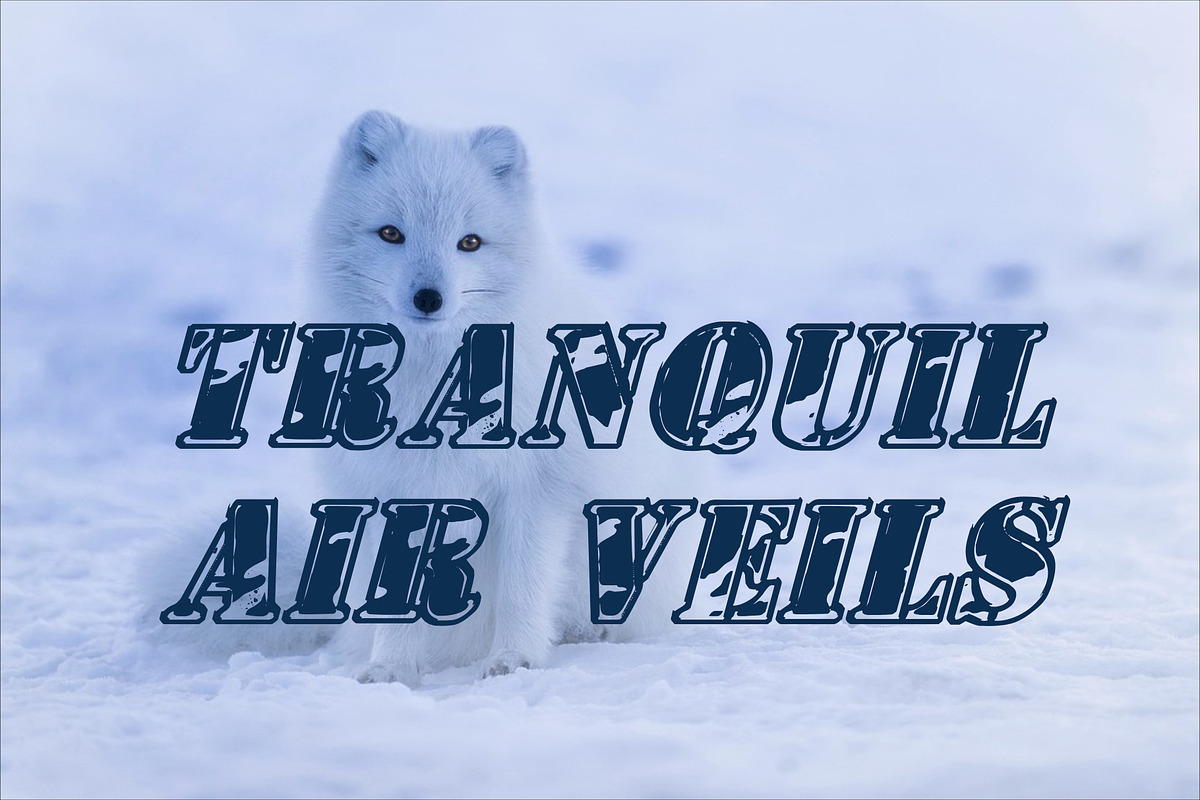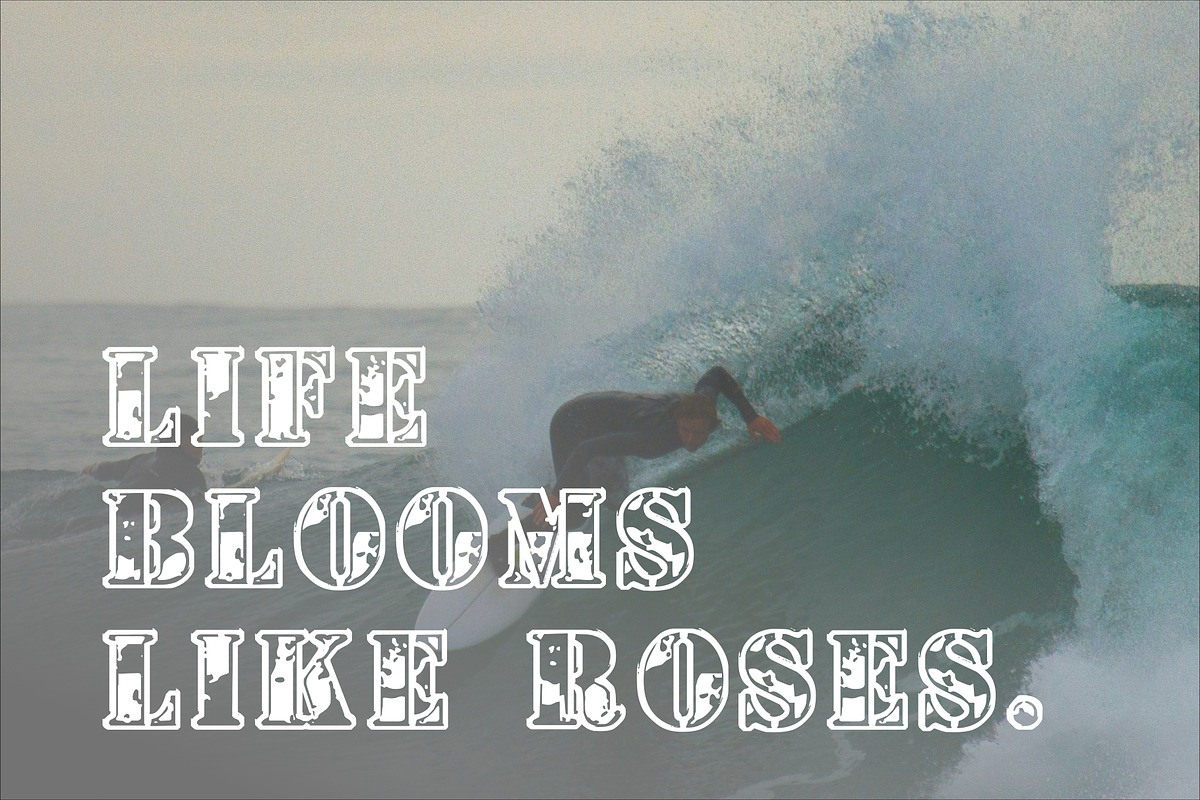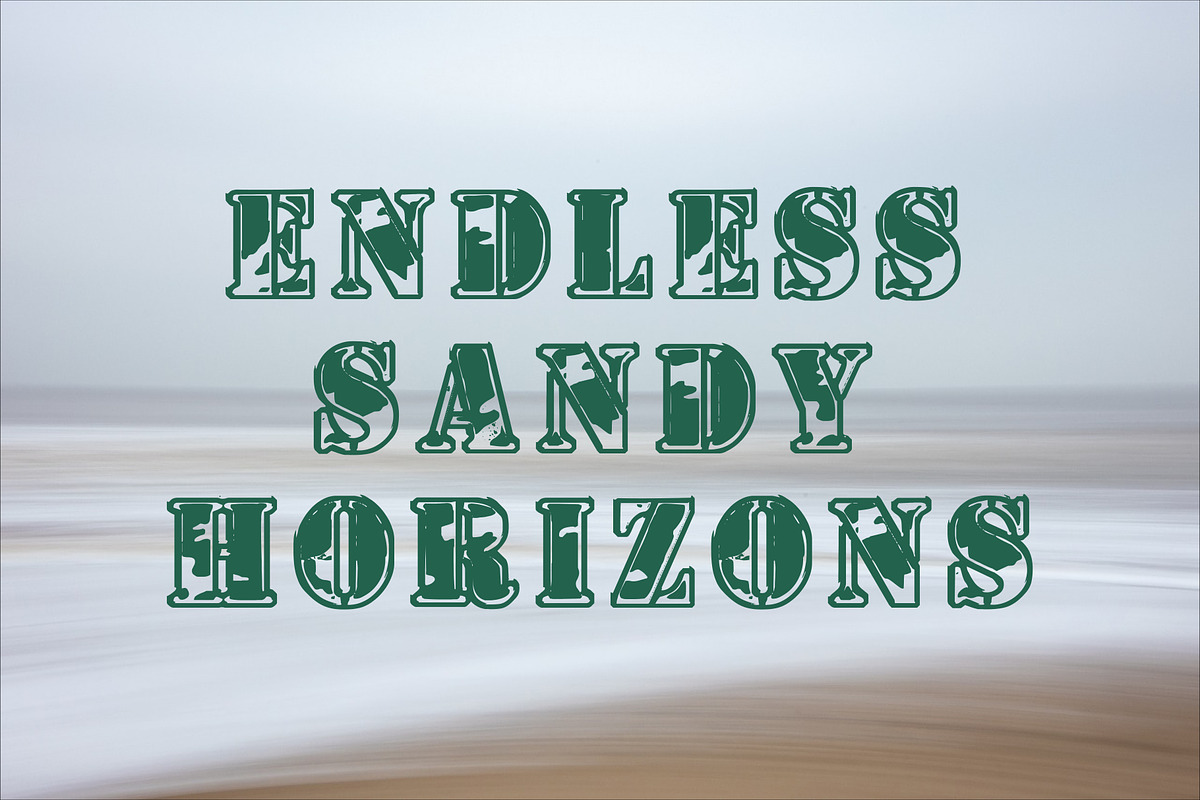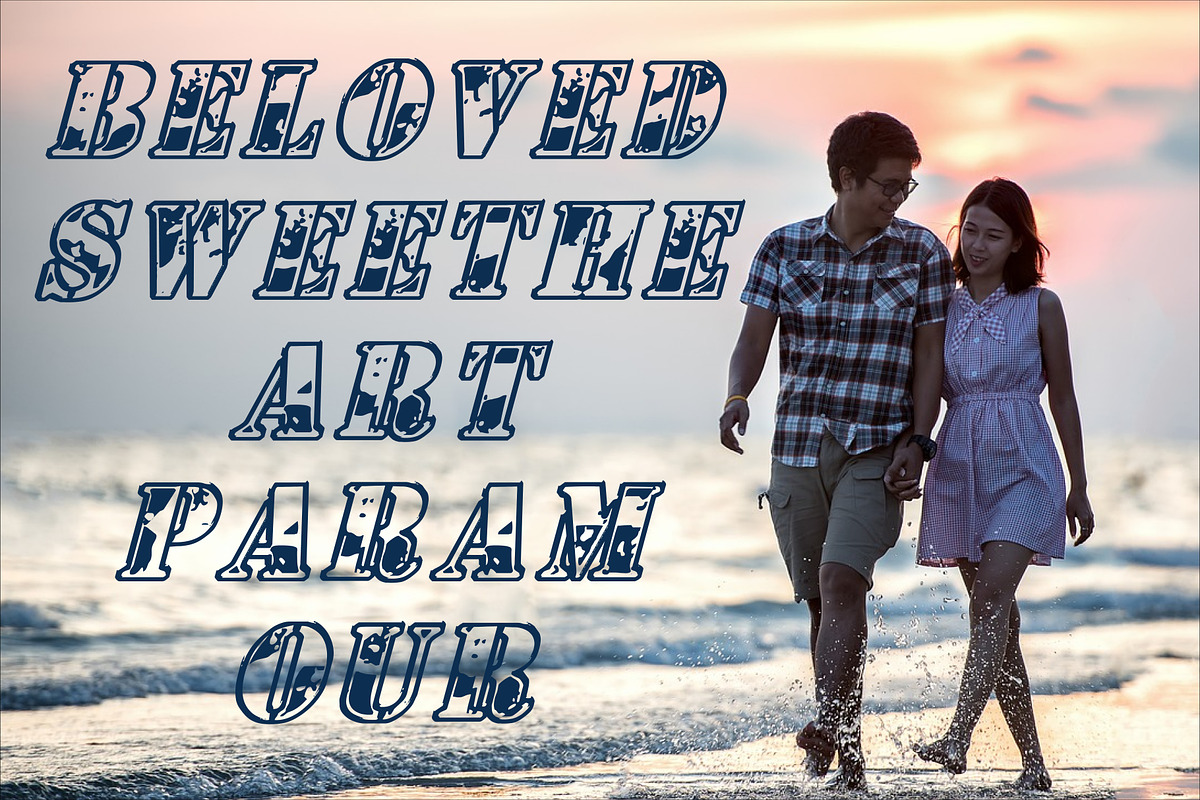
Bold and Brave Typography
The 1st Cav font is a robust and commanding typeface that draws inspiration from military insignia and traditional cavalry emblems. Its bold, structured lines and strong serifs evoke a sense of discipline, strength, and authority, making it an ideal choice for designs that require a touch of regality and power. The font seamlessly blends historical elements with contemporary design principles, providing a versatile tool for creating impactful headings and subheadings.
Whether used in posters, banners, or digital interfaces, the 1st Cav font stands out with its distinctive character and commanding presence. It not only captures the essence of military tradition but also brings a modern twist, making it suitable for various applications, from branding to editorial design. The font’s ability to convey both heritage and innovation makes it a timeless addition to any designer’s toolkit.